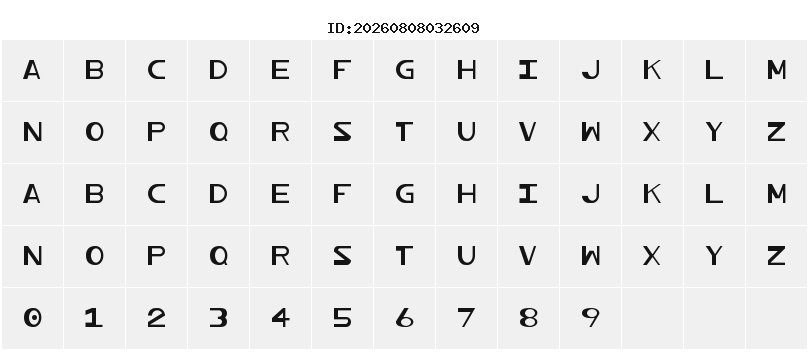
Profundum Preview
• Font Name: Profundum
• Full Font Name: Profundum Regular
• Designer: Jaimy van den Hoof
About Profundum.ttf
Profundum.ttf is a modern, elegant sans-serif font designed for ultimate readability and visual harmony. Perfect for branding, headlines, web design, and print materials.